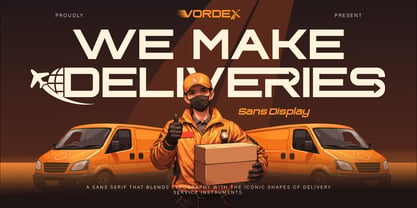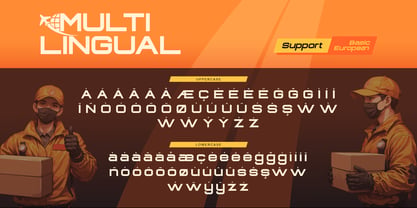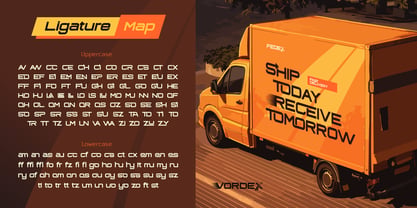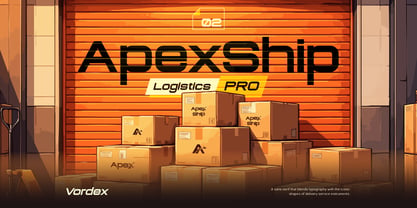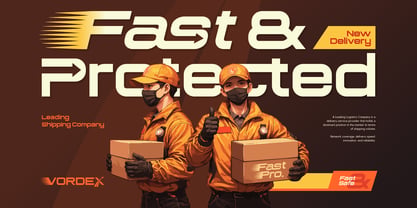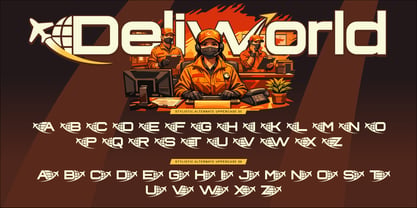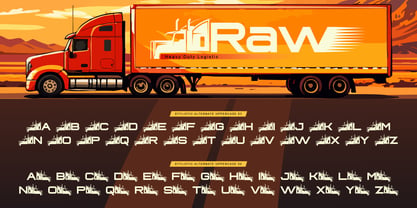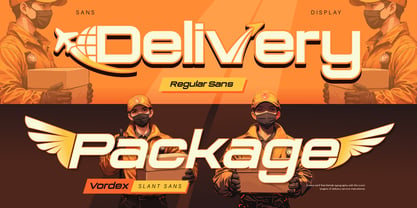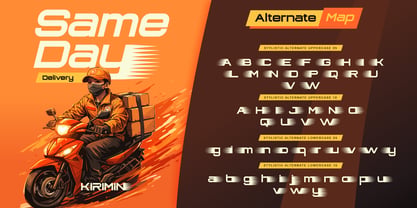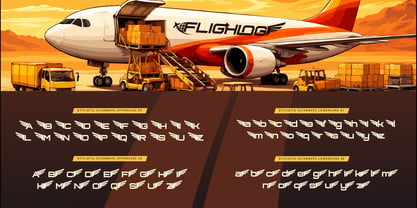
Vordex
by Burntilldead
The Vordex Font Family was designed by Eric Kurniawan and published by Burntilldead. Vordex contains 2 styles and family package options. More about this family
Meet Vordex, a bold and modern sans display font inspired by the fast paced world of logistics and delivery. Designed with strong geometric shapes and dynamic cuts, this font brings a sense of speed, efficiency, and reliability into your designs. Perfect for adding motion and energy to your text just like a package moving fast to its destination. Comes with 2 style: Regular and Slant, This font perfect for: logistics & delivery branding, shipping companies & warehouse visuals, esports & gaming titles, tech and startup designs, posters, headlines, and social media graphics
Designers: Eric Kurniawan
Foundry: Burntilldead